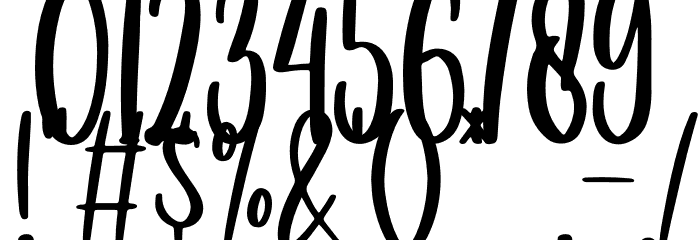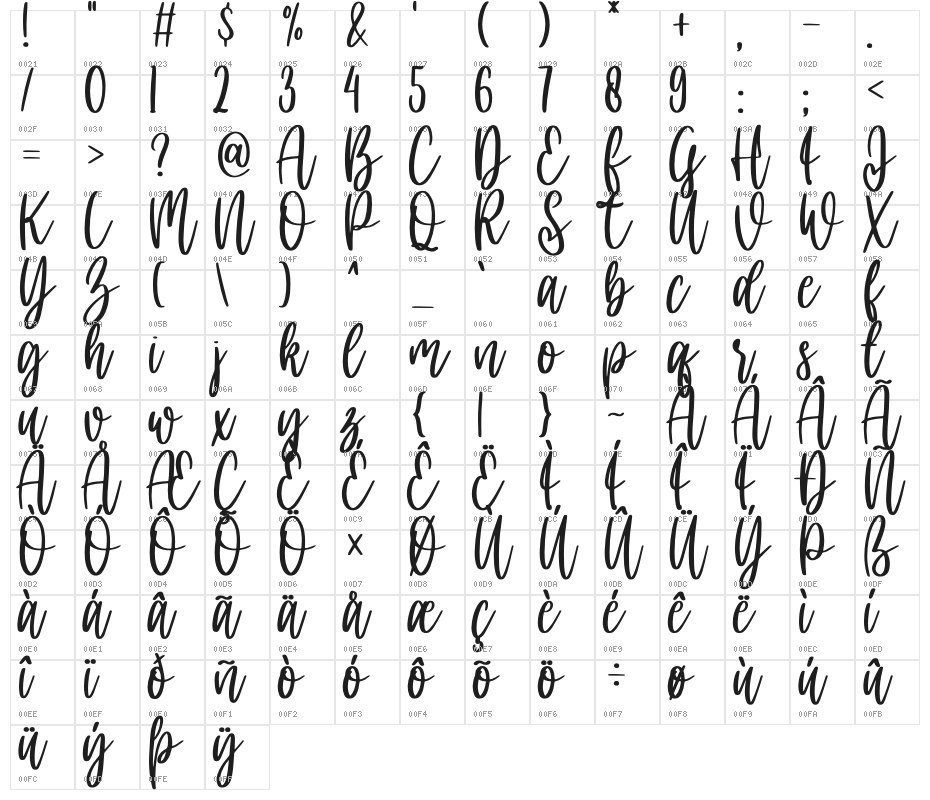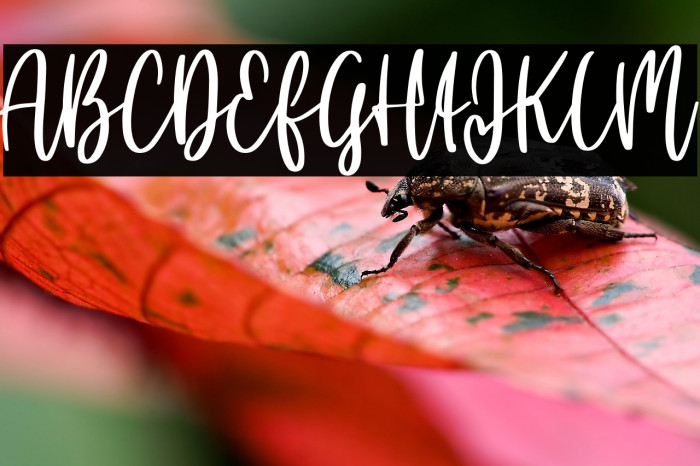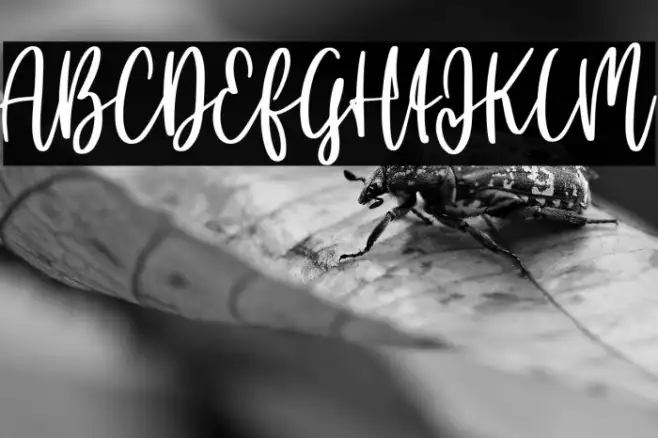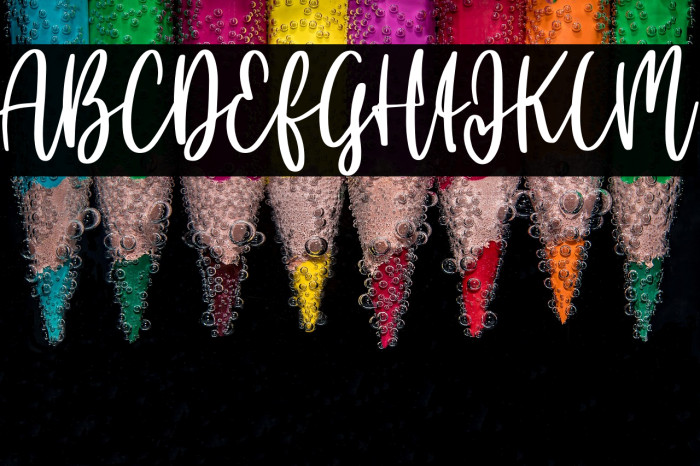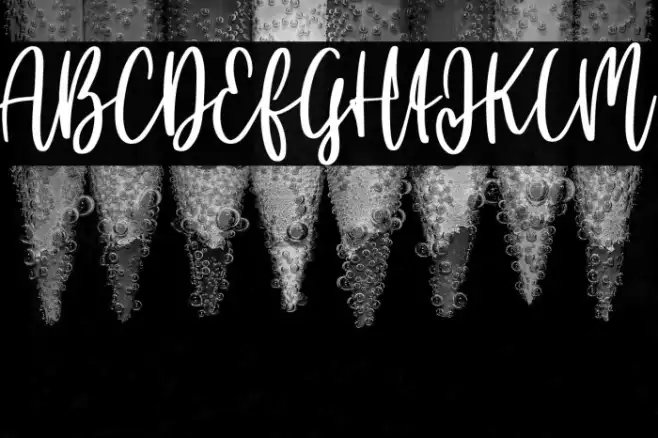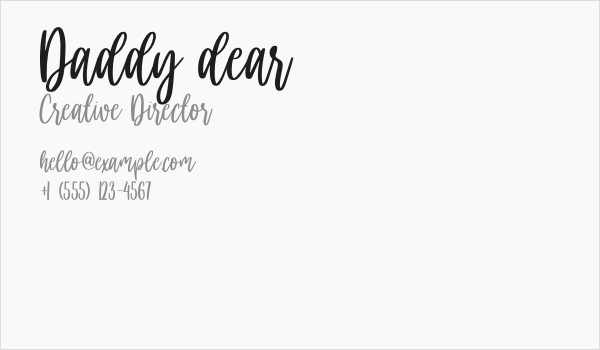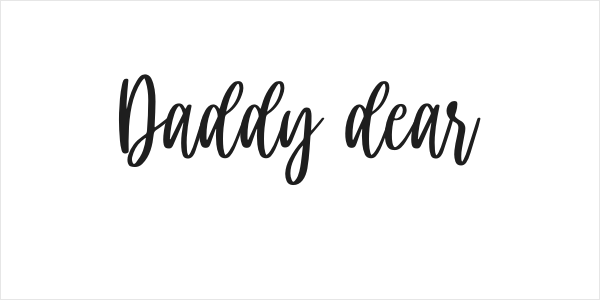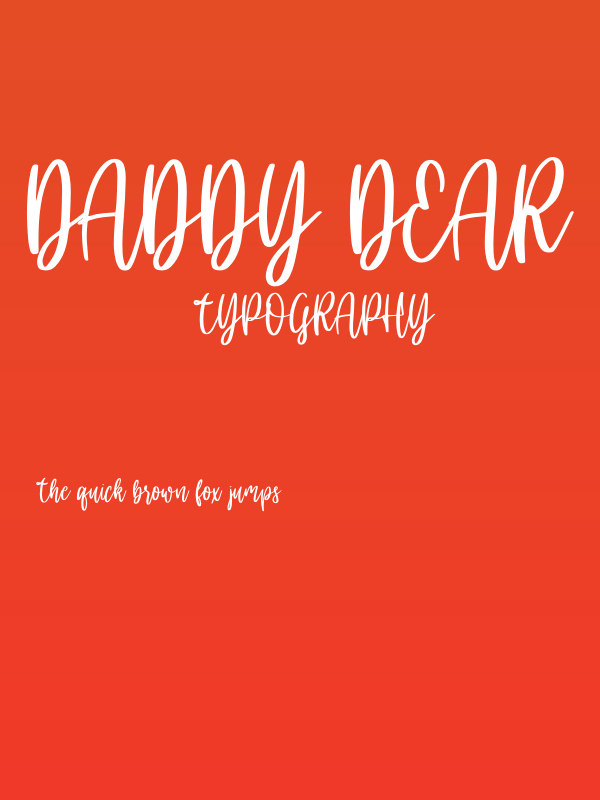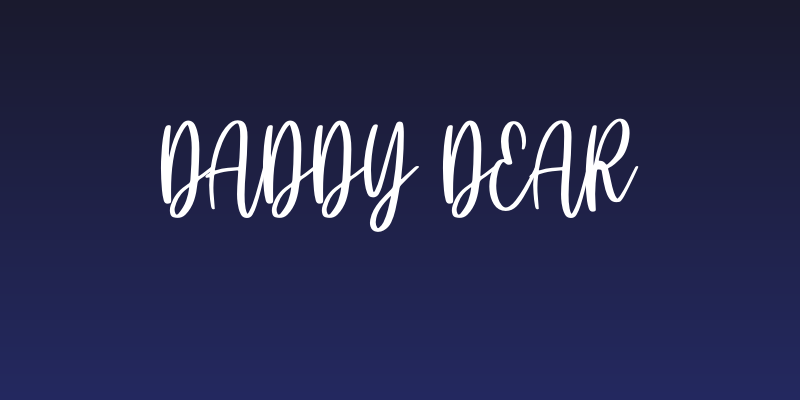
Daddy dear Font
Daddy dear Description
This font features a lively and expressive handwritten style, characterized by its fluid and continuous strokes. The letters are elegantly connected, creating a sense of movement and rhythm. The uppercase and lowercase letters maintain a consistent style, with a playful yet sophisticated appearance. The numerals and special characters are crafted with the same attention to detail, ensuring a cohesive look across all elements. The font's bold weight and medium contrast enhance its legibility while maintaining its artistic flair. This font is perfect for projects that require a personal touch, such as invitations, greeting cards, and branding materials.
| Proposed Projects | Ideal for invitations, greeting cards, branding, and personal projects. |